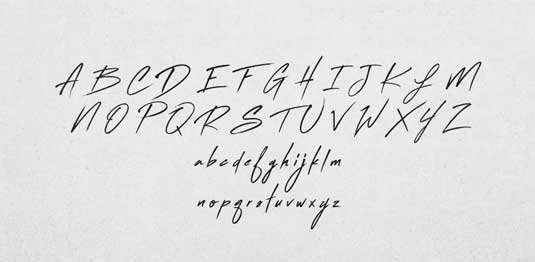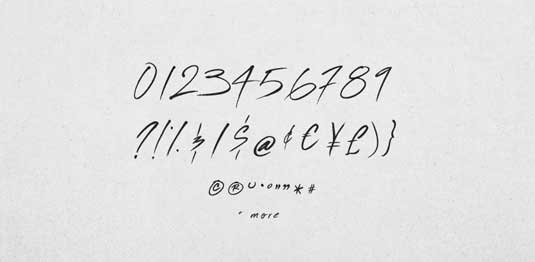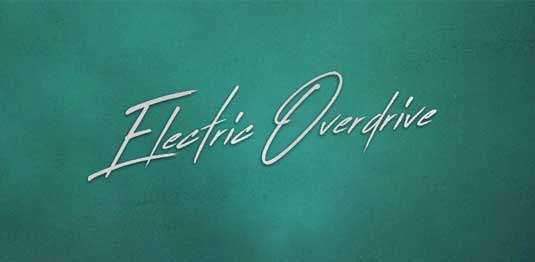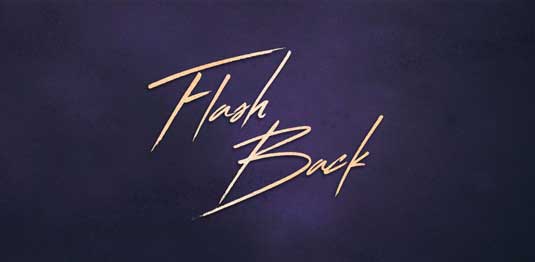
Font of the day: Flash Back
Flash Back from BLKBK
Transport your designs back to the '80s with this cool typeface Flash Back. Offered by font foundry BLKBK, Flash Back is great for any retro-style design.